1. Stairway Font
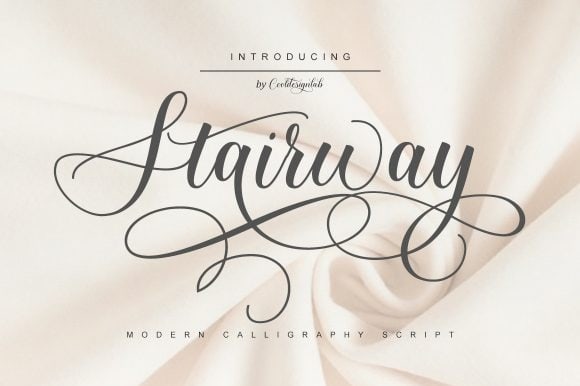
Stairway is a modern and elegant calligraphy font that comes with exquisite character changes and designed with high detail to present an elegant style.
2. Housewife Font
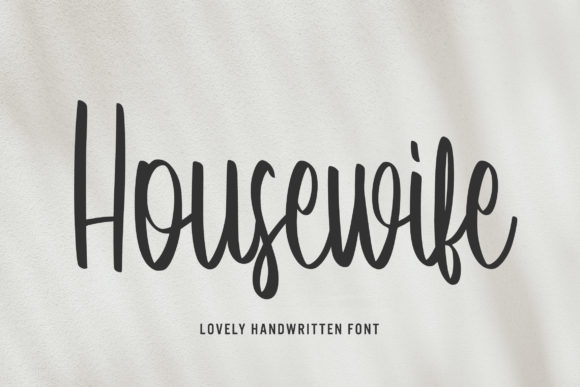
Housewife is a stylish and elegant handwritten font ready to impress your audience and make your branding shine. Make your projects stand out with this elegant and wonderful font wherever you use it. Perfect for headings, logos, ads, printed quotes, packaging, and even your website or social media branding.
3. Peony Blush Font
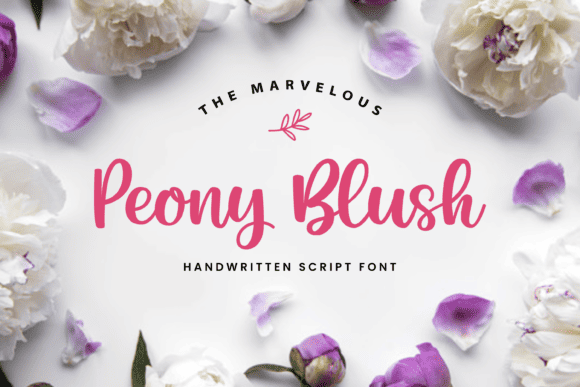
Peony Blush is a sweet and cursive handwritten font. This gentle font will look gorgeous on a variety of design ideas. It will add a joyful and romantic touch to each of your projects!
4. Faikinlan Font
Faikinlan is a stylish and incredibly elegant script font. It looks dazzling on wedding invitations, thank you cards, quotes, greeting cards, logos, business cards and every other design which needs a handwritten touch. This font is PUA encoded which means you can access all of the glyphs and swashes with ease!
5. Sweden Love Font
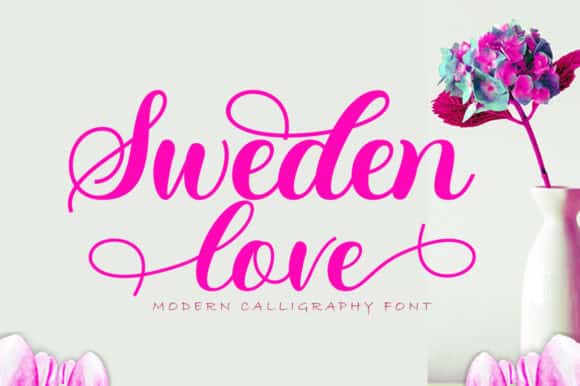
Sweden Love is a charming and friendly handwritten font. This font’s versatility will appeal to a wide range of crafty ideas, from letterheads and titles, to stationery.
6. Rubra Costa Font
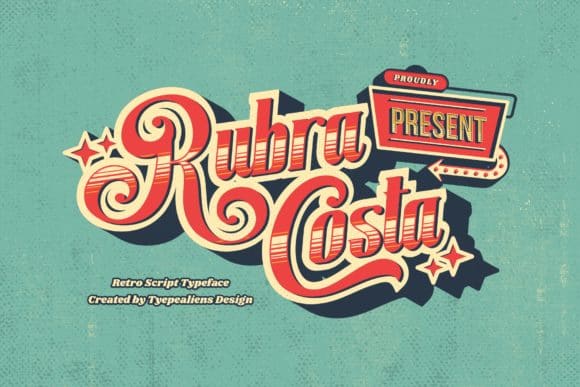
Rubra Costa is a vintage styled and thick lettered handwritten font, crafted to give your headlines and logotype projects a stylish touch. This font reads as strong, confident, and dynamic and can add tons of nostalgic character to your designs.
7. Sweet Child Font
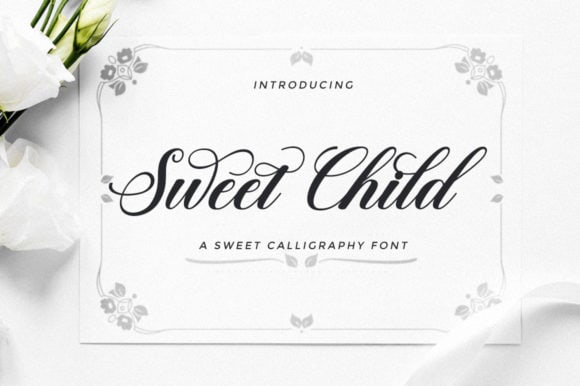
Sweet Child is an elegant script font with a contemporary atmosphere and impeccable form, inspired by timeless classic calligraphy. Not too thin and not too thick, balanced and varied, Sweet Child was designed to enhance the beauty of your projects.
8. Hand of King Font
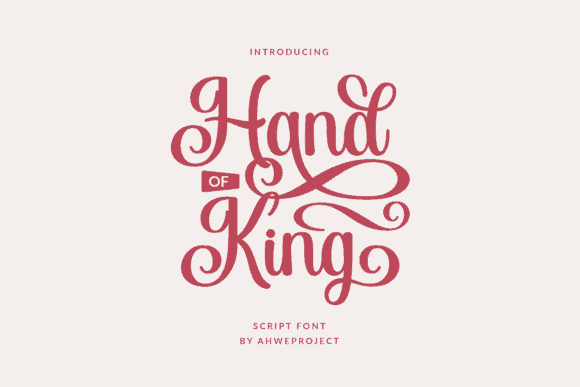
Hand of King is a beautiful and sweet handwritten font. It is fresh, clean, and elegant. Incredibly versatile, this font fits a wide pool of designs, elevating them to the highest levels. It looks amazing on thank you cards, quotes, wedding invitations, greeting cards, business cards, logos and any other design that requires a handwritten touch.
9. Hugtophia Font
Hugtophia is an elegant script font with a contemporary atmosphere and impeccable form, inspired by timeless classic calligraphy. Not too thin and not too thick, balanced and varied, this font was designed to enhance the beauty of your projects.
10. Deckled Font
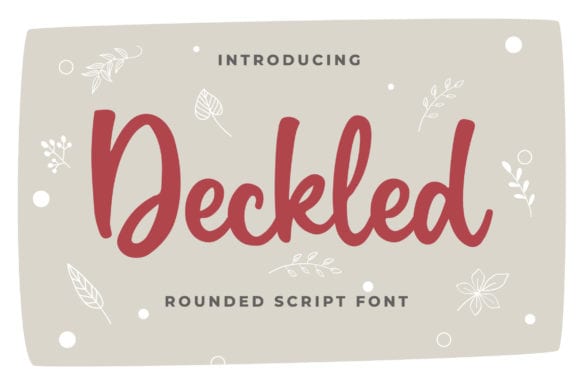
Deckled is a beautiful brushed handwritten font. Flowing and smooth, this font will be a major hit for each of the designs that you wish to develop.